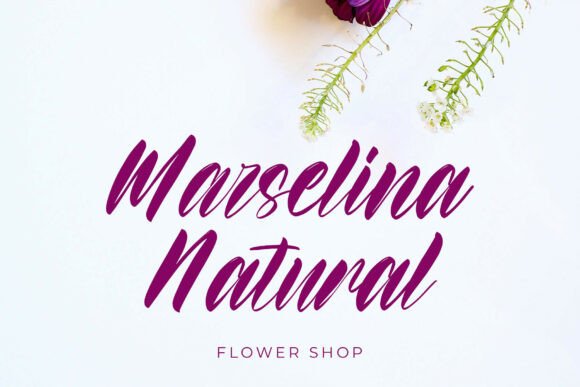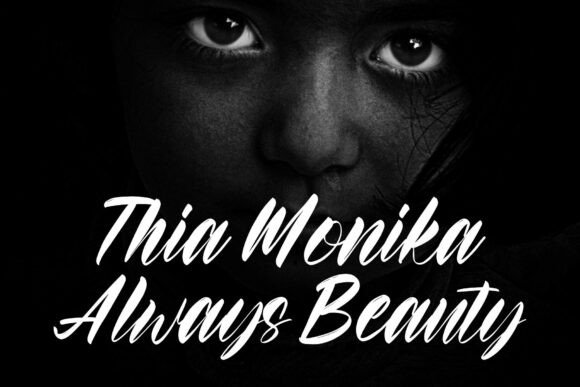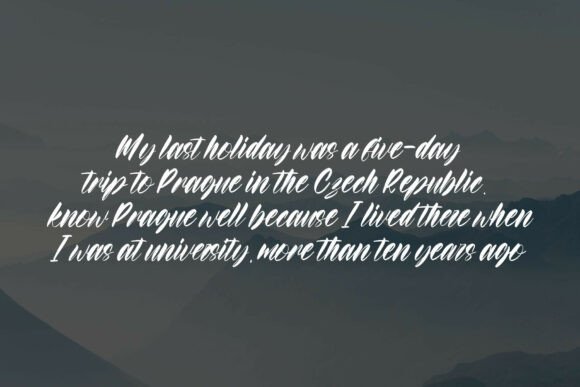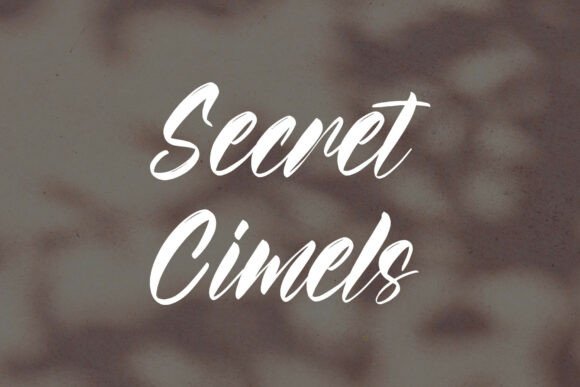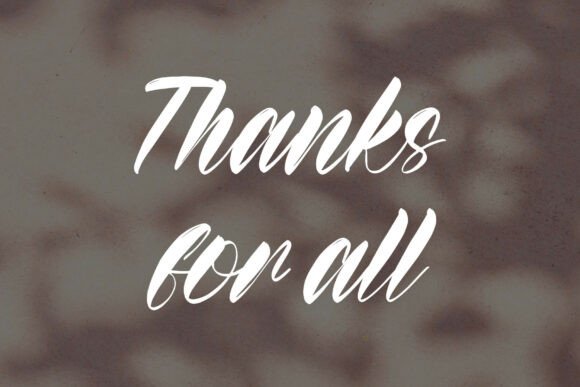
The Charm of Hand-Drawn Design
Have you ever stared at a vintage photograph, mesmerized by the imperfections and textures that tell a story of the past? The same feeling can be captured in your designs with the right font. For creatives seeking to infuse their work with a touch of nostalgia and handcrafted charm, the Chella Lagak Font is a perfect companion.
This vintage script font is designed to evoke the feeling of hand-drawn letters, with its brush-style aesthetic and organic stroke flow. Its casual slant, uneven baseline, and rough ink texture lend a handmade warmth that’s hard to resist. Whether you’re working on retro logos, handcrafted labels, or apparel, the Chella Lagak Font adds character and nostalgia to your designs, making it a valuable addition to any designer’s toolkit.
Chella Lagak Font Key Features
- Font Style: Script, Handwritten
- Unique Characteristics: Distinctive handwritten feel, elegant and cursive strokes, suitable for creative and artistic purposes
Chella Lagak Font Review
Overall, I think Chella Lagak is an interesting and unique font, but it’s not without its limitations.
- Chella Lagak has a distinct, exotic feel that can add a touch of elegance to any design project.
- The font’s curves and flourishes are well-executed, making it suitable for use in branding, packaging, or any other design where a touch of sophistication is desired.
- The font’s versatility allows it to work well in both digital and print formats.
- The font may be challenging to read at smaller sizes, especially for those who are not familiar with its unique character set.
- The font’s complexity may make it difficult to pair with other fonts, potentially limiting its use in certain design contexts.
- Some users may find the font’s flourishes and ornaments to be overly decorative, potentially detracting from the overall message or content of the design.
Overall, I think Chella Lagak is a solid choice for designers who want to add a touch of sophistication and elegance to their projects. However, it’s essential to carefully consider the font’s limitations and potential challenges before deciding to use it.
Getting the Most Out of Chella Lagak Font
Here are some tips to get the most out of Chella Lagak Font:
- Use it for creative projects that require a unique and exotic look.
- Combine it with other fonts to create a visually appealing contrast.
Chella Lagak Font is commonly used in:
- Graphic design projects.
- Travel and cultural-themed designs.
- Use the font for the main title of the invitation, such as “Whispers in the Woods” or “A Night Under the Stars”.
- Add a touch of elegance with a serif font, such as Arial or Times New Roman, for the body text.
- Combine with watercolor elements, such as flowers and leaves, to create a dreamy and ethereal atmosphere.
- Use a combination of bold and regular font weights to add depth and visual interest.
- Use the font for the main logo or title of the business, such as “The Cozy Cupcake” or “Luna’s Boutique”.
- Add a touch of sophistication with a sans-serif font, such as Helvetica or Calibri, for the tagline or business description.
- Combine with custom illustrations or graphics to create a one-of-a-kind brand identity.
- Use a combination of uppercase and lowercase letters to add visual interest and create a sense of movement.
Alternatives to Chella Lagak Font
Lato is a modern sans-serif typeface designed by Łukasz Dziedzic. It is suitable for both print and digital media. Lato is a great choice for designers who want a clean and elegant font for their projects. When to use: Lato is perfect for corporate identities, magazines, and websites.
Comparison: Lato is more versatile and has a wider range of weights compared to Chella Lagak Font. However, Chella Lagak Font has a more unique and exotic feel to it.